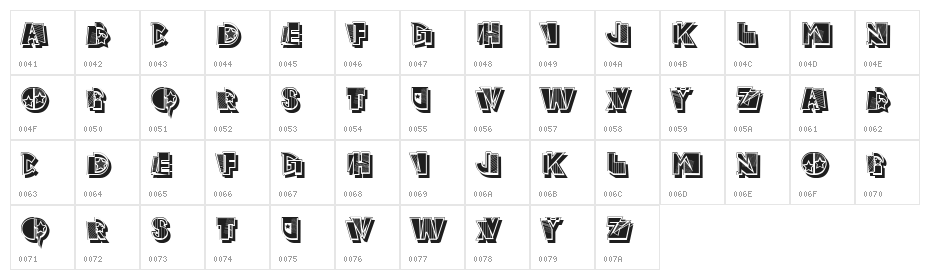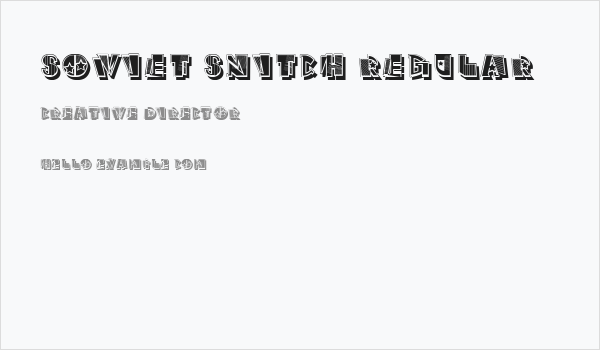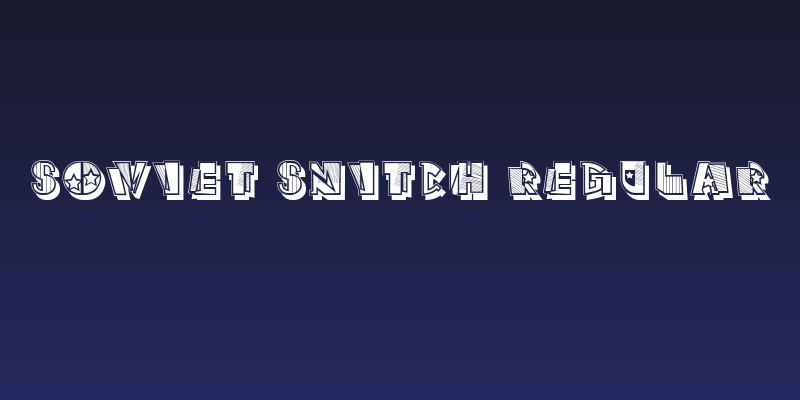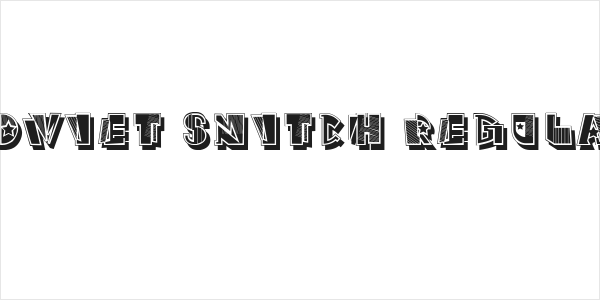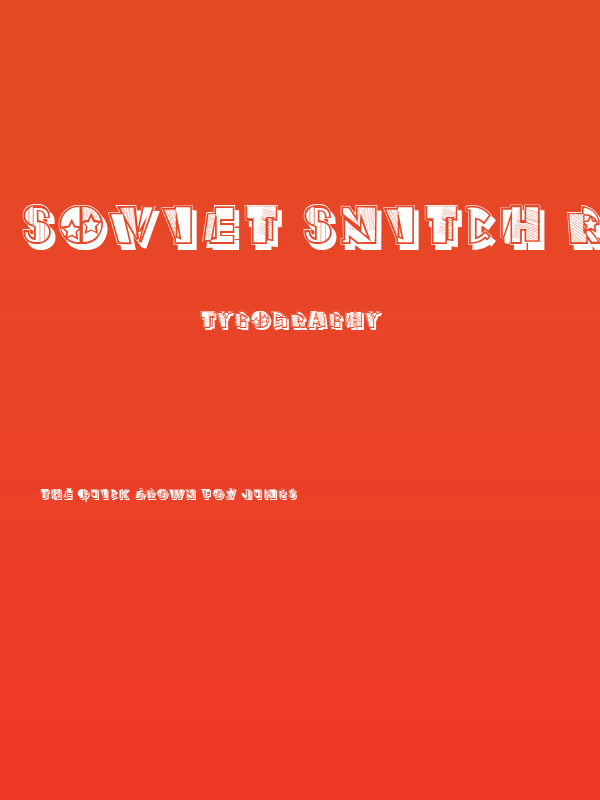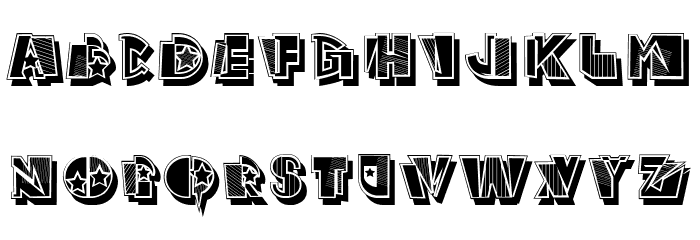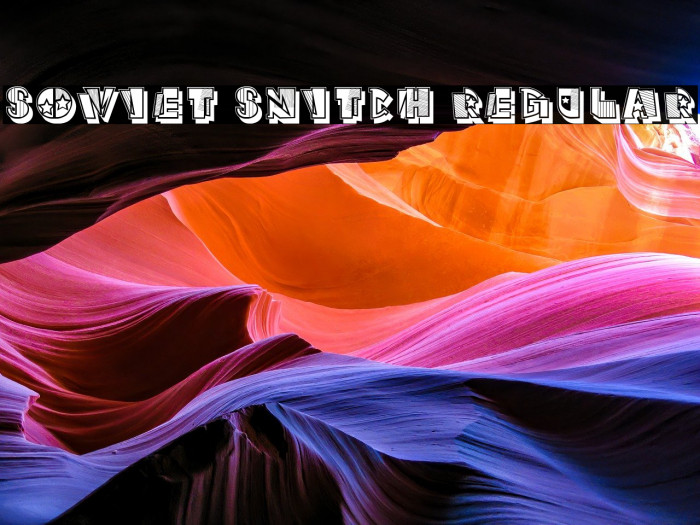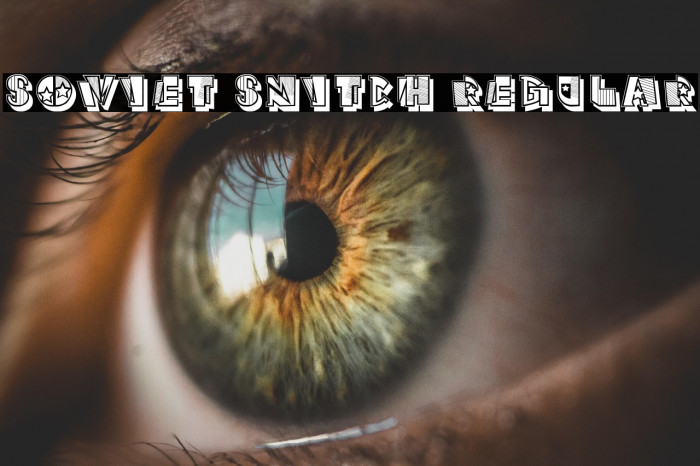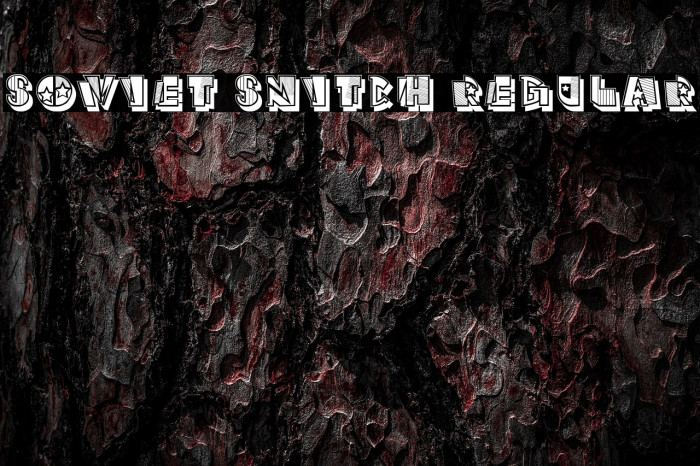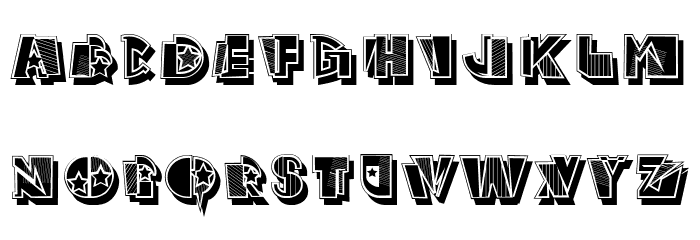
Soviet Snitch Regular Font
| Stile generale | Modern, Constructivist |
| Caso d'uso | Headlines, Posters, Branding |
| Progetti proposti | Ideal for posters, album covers, branding, and any project requiring a bold, artistic touch. |